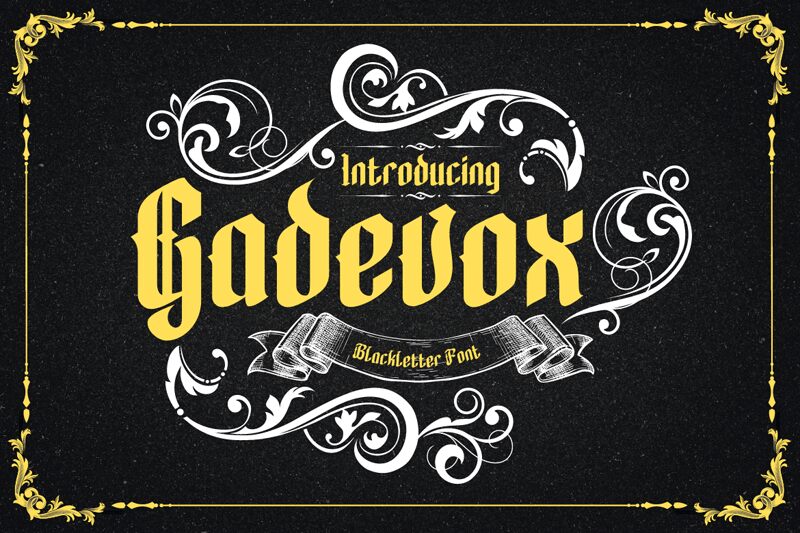
Gadevox-Regular
Gadevox, the brainchild of twinletter, is a captivating gothic blackletter font that exudes modernity. Its unique style seamlessly combines traditional elements with a contemporary twist, making it ideal for a wide range of projects.
With its extra-condensed width, Gadevox is perfect for creating bold headlines and eye-catching titles that demand attention. Whether you're designing brochures for an edgy music festival or crafting striking logos for a cutting-edge fashion brand, Gadevox will add a touch of sophistication and intrigue to any project.